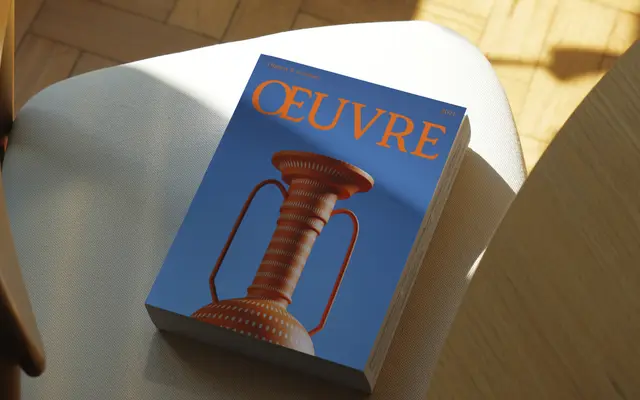
A warm humanist serif with five weights and decorative uppercase alternates, drawing on the Greek concept of pouring oneself into one's work.
Five styles from Regular to Heavy cover a practical weight range for editorial and branding use. Special uppercase letter variants add personality beyond the core character set, and glyph coverage extends to Latin Extended and Cyrillic. The design leans toward warmth and legibility rather than formal rigour, suiting projects that need a friendly but considered serif voice.
Described as warm and human, with thoughtfully crafted lines and curves emphasising character and sincerity; this points to a humanist serif tradition rather than a cooler transitional or rational model.